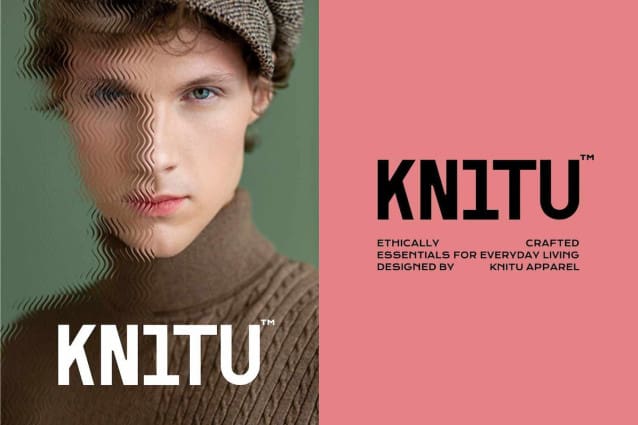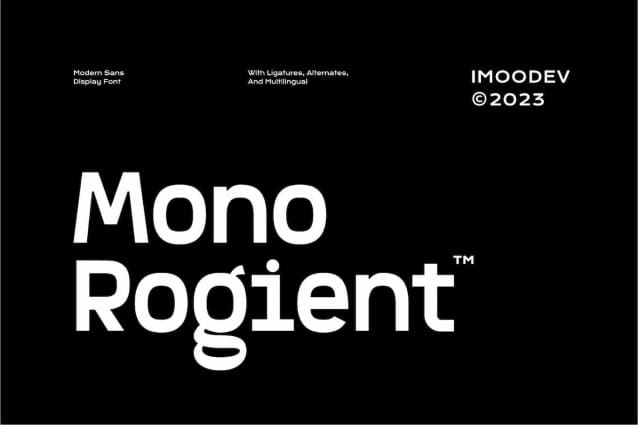
Mono Rogient Font
Mono Rogient Font is a modern faceless font with smooth curves and visual style that embodies charm and elegance in every lettering, making your work look stunning and attractive.
A versatile font that works in both upper and lower case, suitable for a wide variety of projects such as display font for titles, logo fonts, invitations, branding, book covers , magazine layouts, cards, product packaging, product mockups, mugs, posters, labels, editorials, art deco and any type of advertising purposes.